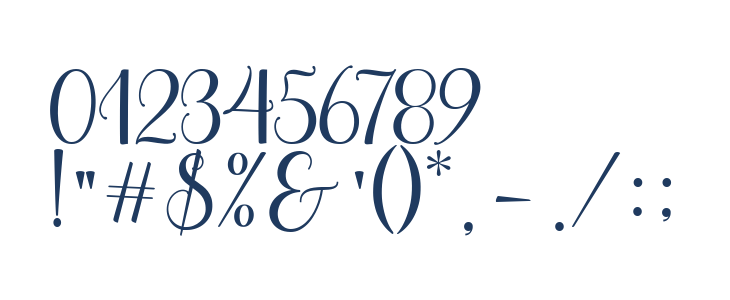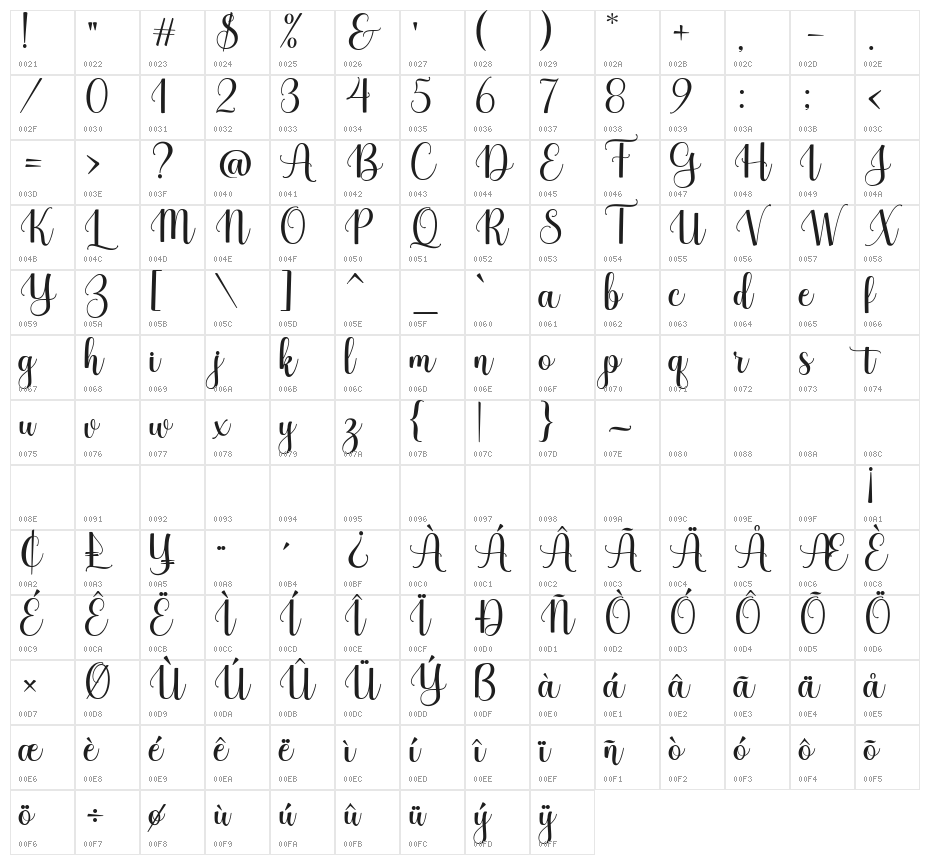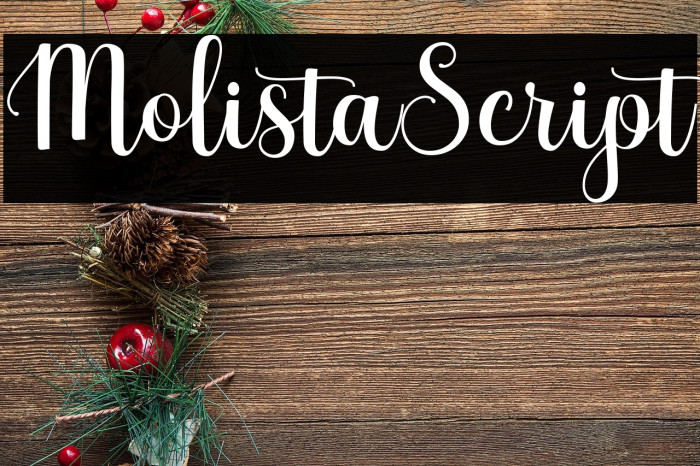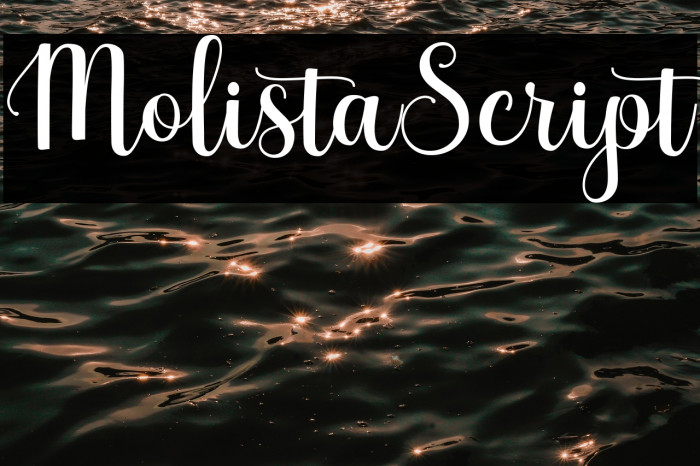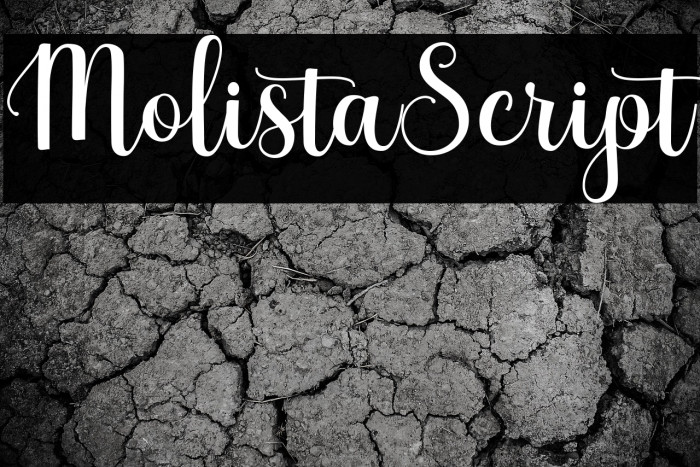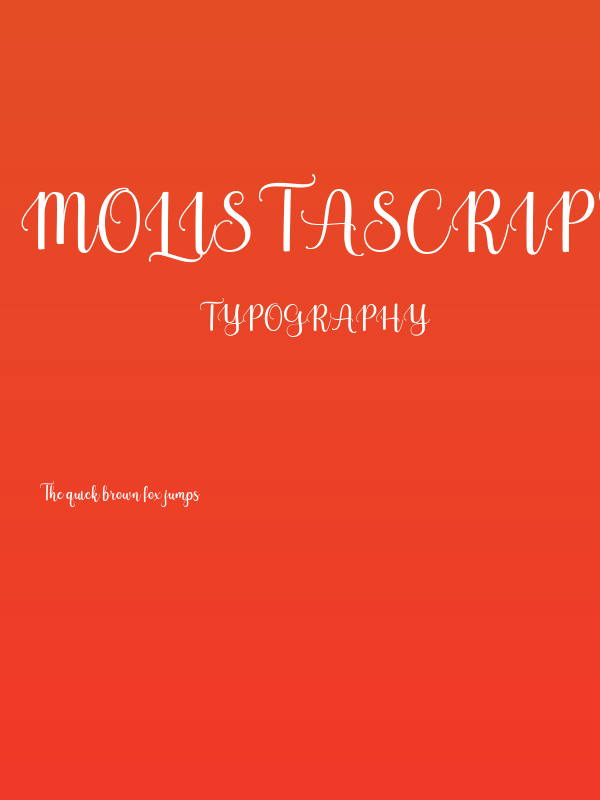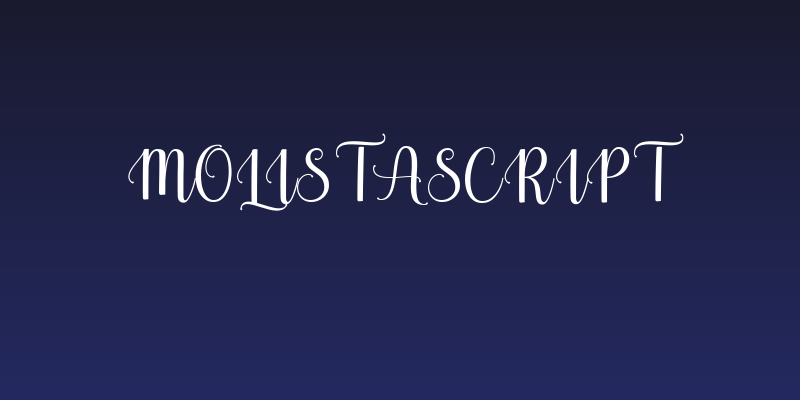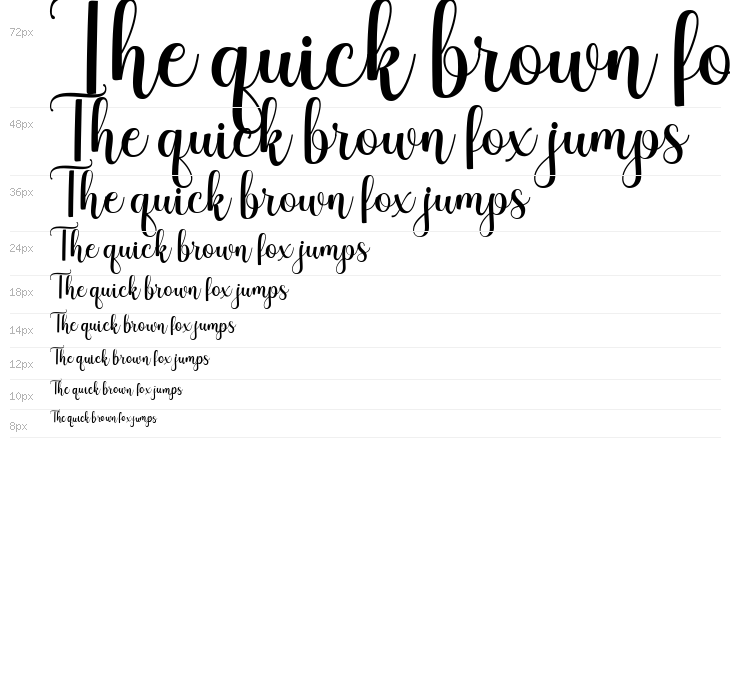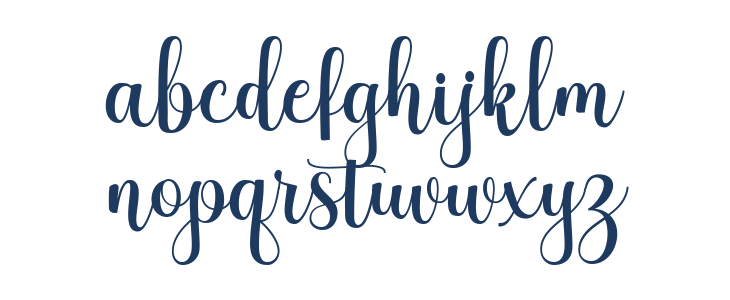
MolistaScript Font
MolistaScript Description
This elegant script font features a flowing, cursive style with smooth, rounded edges and graceful loops. The uppercase letters are tall and slender, with distinctive swashes that add a touch of sophistication. The lowercase letters maintain a consistent flow, enhancing readability while retaining an artistic flair. Numbers and special characters are designed with the same fluidity, making them seamlessly integrate with the text. The overall appearance is both stylish and versatile, suitable for a range of design applications.
| Overall Style | Elegant |
| Use Case | Logos, Invitations, Branding |
| Proposed Projects | Ideal for wedding invitations, greeting cards, branding, and elegant logo designs. |